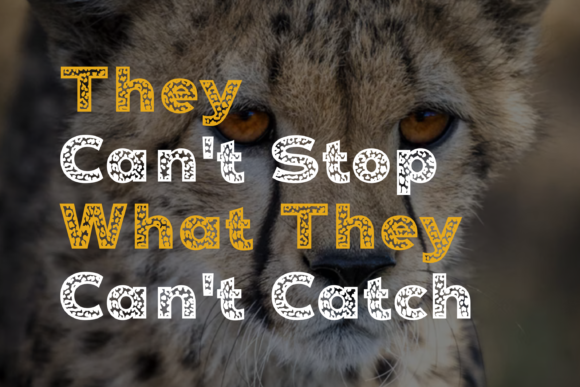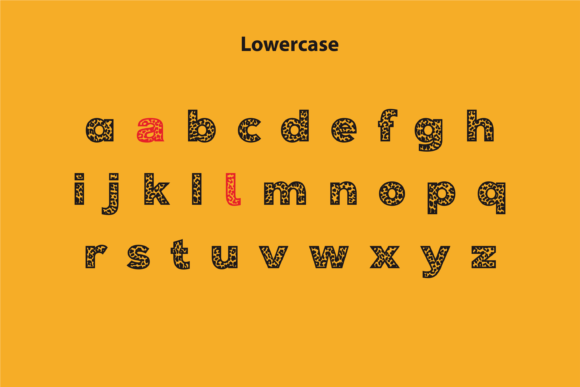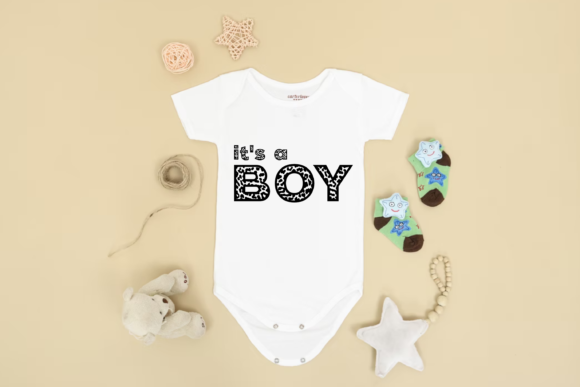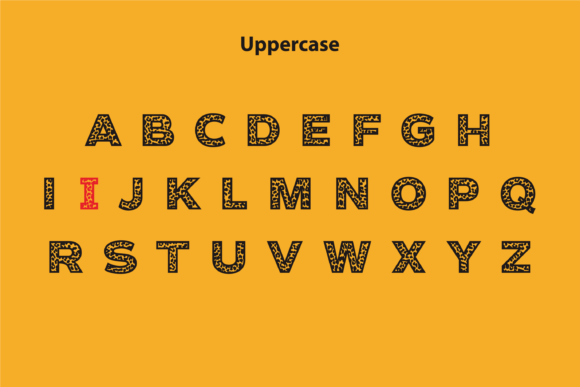
The Perfect Roar for Your Designs: Introducing Cheetah Font
Have you ever stared at a blank page, struggling to bring your creative vision to life? The blank slate can be intimidating, but sometimes all it takes is the right tool to set your imagination ablaze. That’s where the Cheetah Font comes in – a bold and chunky lettered display font that’s guaranteed to make your designs roar.
Whether you’re a seasoned designer or just starting out, Cheetah Font is the perfect addition to your creative arsenal. This striking font is designed to stand out, making it ideal for use in headings, titles, and other prominent design elements. By incorporating Cheetah Font into your designs, you’ll be able to add a touch of personality and flair that’s sure to grab attention.
Cheetah Font Key Features
- Font Family: Cheetah is a sans-serif font family designed for digital use, available in various weights and styles.
- Unique Characteristics: The font features a distinctive, modern design with a high x-height, making it highly legible at small sizes and in digital environments.
Cheetah Font Review
The Cheetah font is a bold, sans-serif typeface that’s sure to make a statement. One of its strongest aspects is its ⚡️ high level of readability, making it perfect for large text sizes or headlines. It’s also very versatile, as it comes in a range of weights and styles that can be used for everything from body text to logos.
Another thing that works well for Cheetah is its exotic feel. The font’s unique letterforms give it a distinctive look that’s sure to grab attention. This makes it a great choice for designers who want to add some visual interest to their projects.
However, there are a few limitations to consider. One of the main issues is that Cheetah can be a bit too bold at times, which may make it difficult to read in certain contexts. Additionally, the font’s irregular letterforms can be difficult to customize or modify, which may limit its use in certain design situations.
Overall, I think the Cheetah font is a great choice for designers who want to add some excitement to their projects. While it may have some limitations, its high level of readability and versatility make it a solid choice for a wide range of design applications.
- ⚡️ High level of readability
- Very versatile
- Exotic feel
- ⚠️ Can be too bold at times
- Difficult to customize
The Cheetah Font is commonly used for:
Headlines and titles.
Branding and logos.
Marketing materials and advertisements.
Editorial and journalistic content.